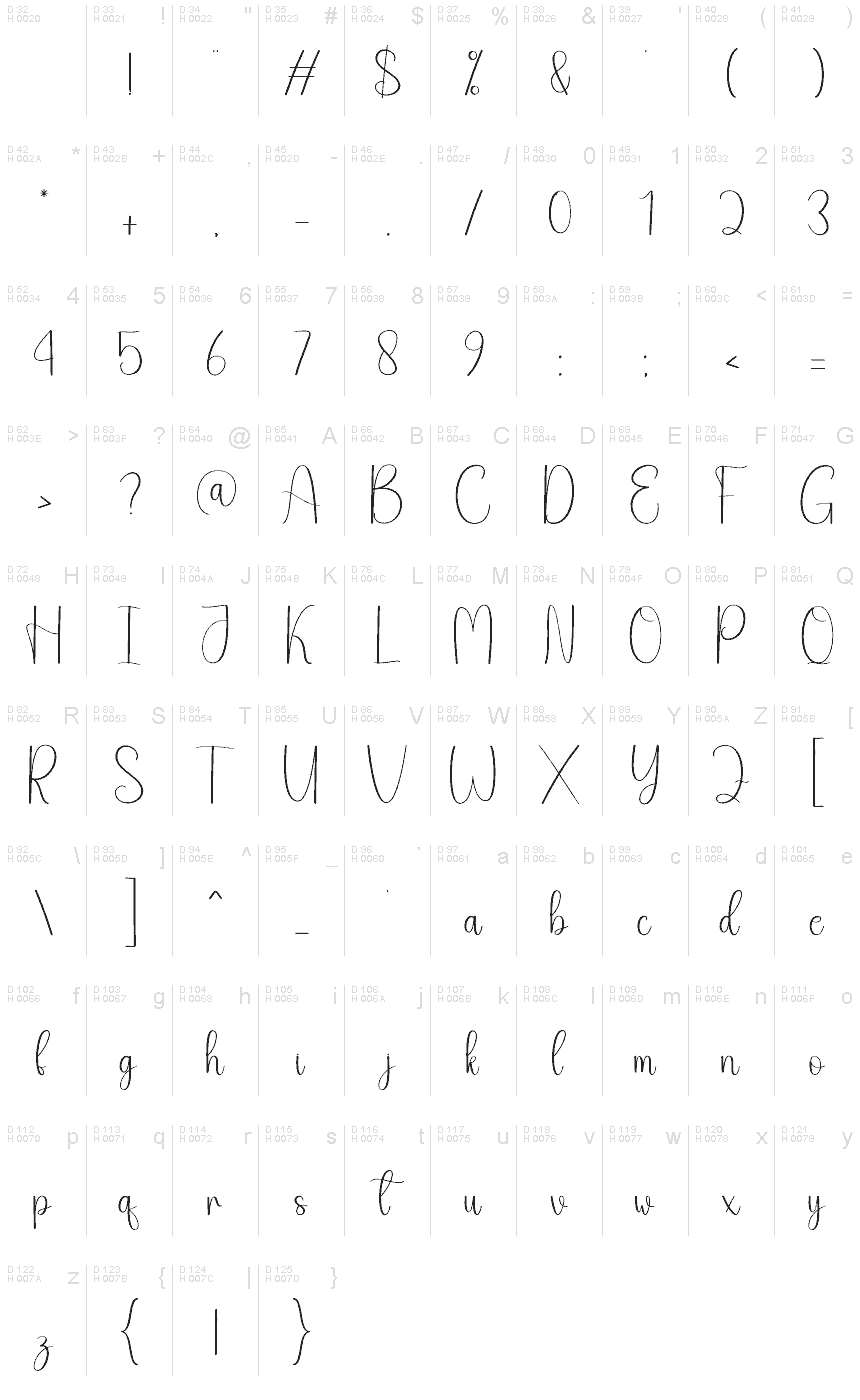
Therapy
Therapy font is a light handwritten typeface created by Andi Moz. With its condensed structure, it brings elements of elegance, artistic flair, and modern appeal to any design project. Infused with casual charm and expressive style, this font combines impeccable legibility with sophisticated features that maintain a distinguished effect.